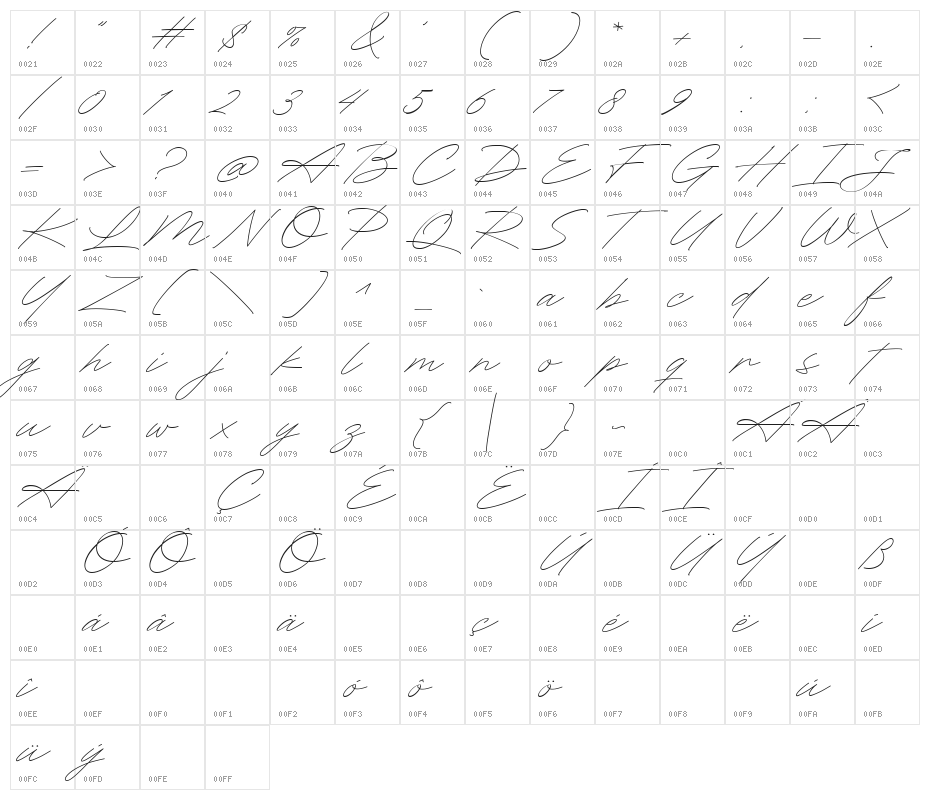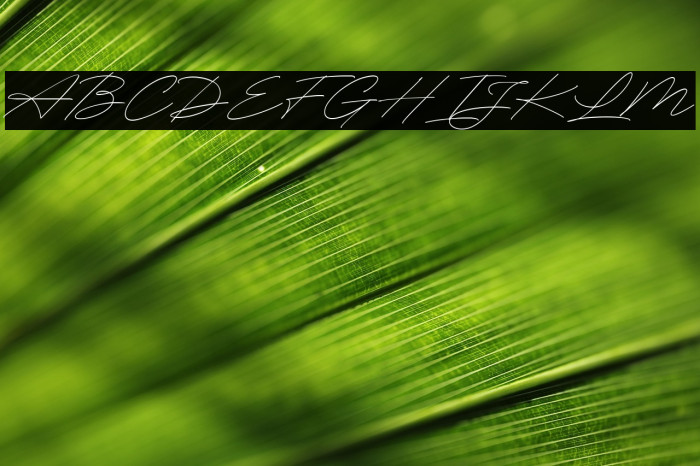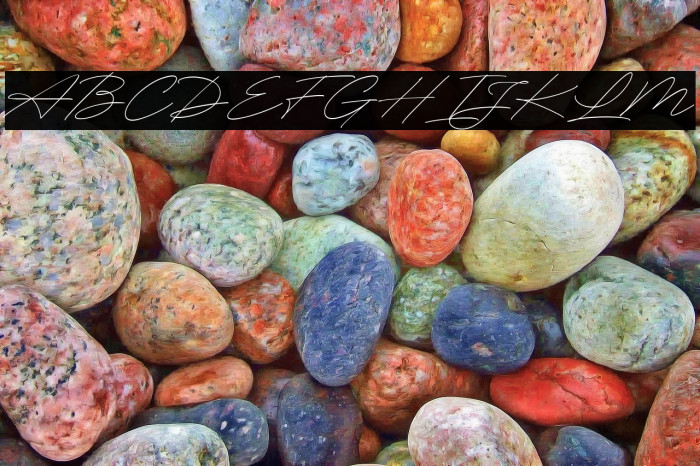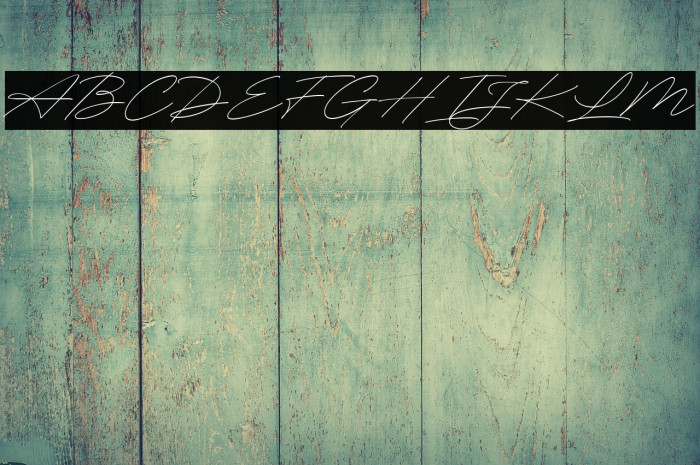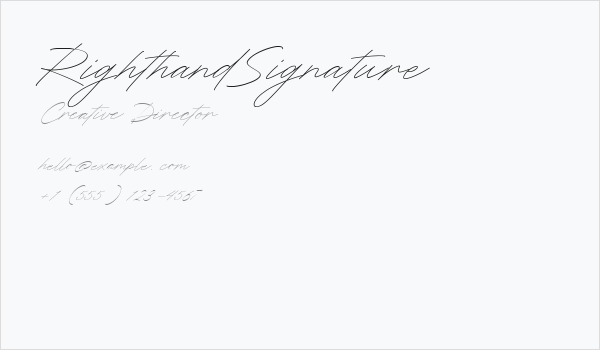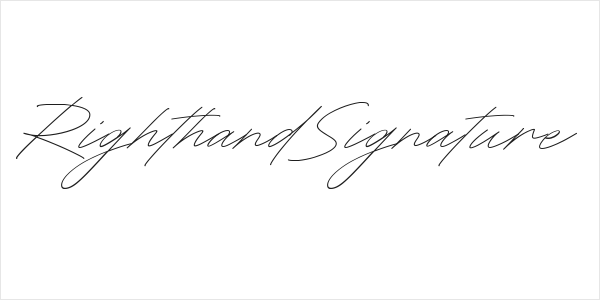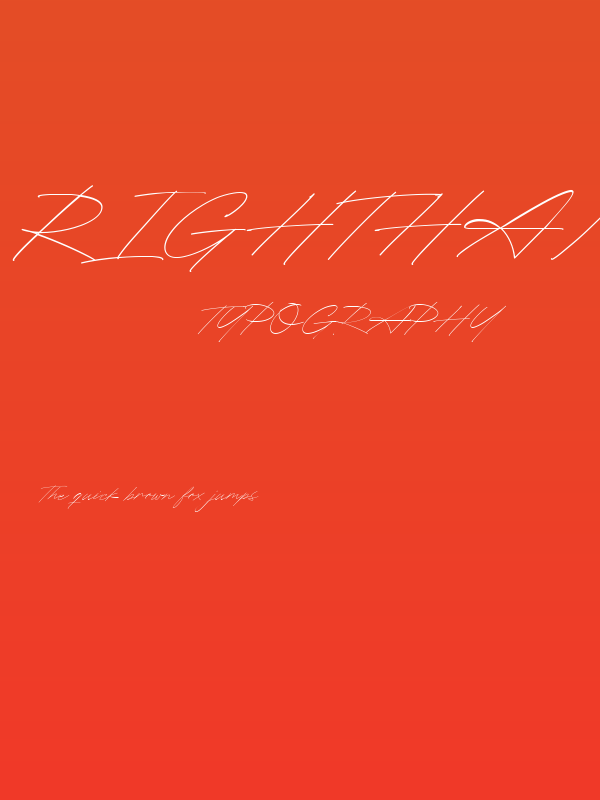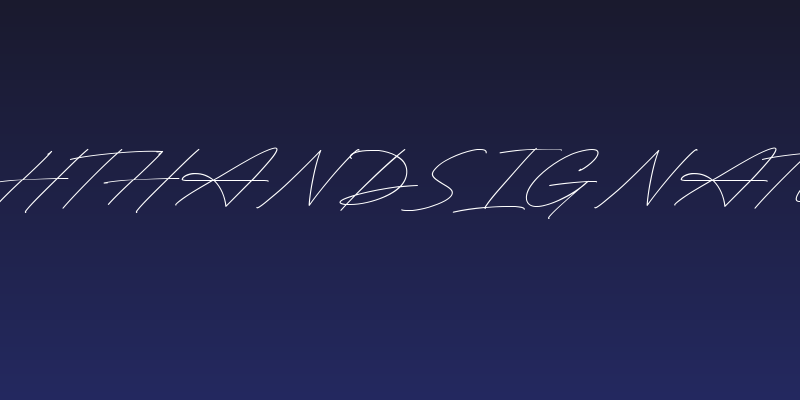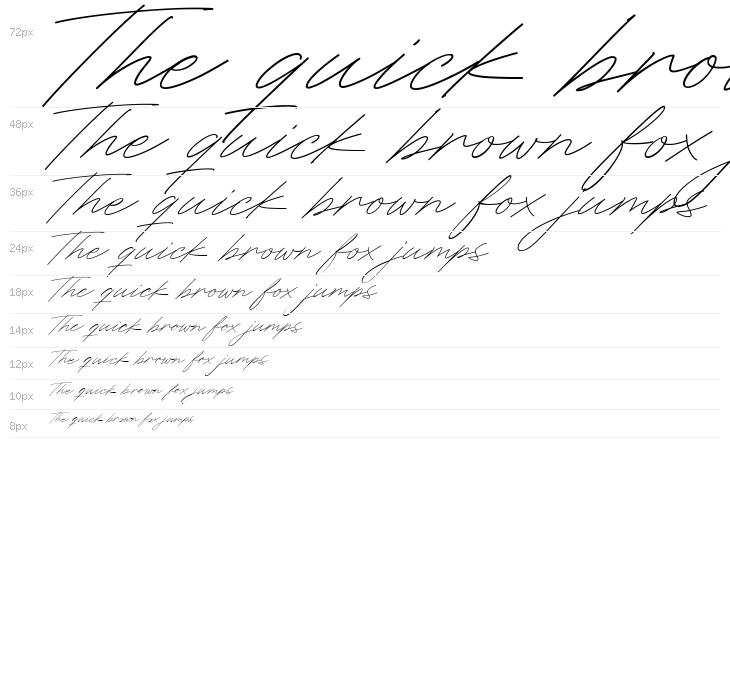
RighthandSignature Font
RighthandSignature Description
This elegant script font mimics the fluidity and grace of a handwritten signature. Its cursive style features smooth, flowing lines with a slight slant, giving it a sophisticated and personal touch. The uppercase letters are slightly larger and more ornate, while the lowercase letters maintain a consistent flow, enhancing readability. Numbers and special characters are designed to match the overall aesthetic, ensuring a cohesive look across all text elements. The font's delicate strokes and subtle variations in line thickness add to its charm, making it ideal for projects that require a touch of elegance and personalization.
| Overall Style | Elegant, Personal |
| Proposed Projects | Ideal for wedding invitations, personal branding, elegant stationery, and signature logos. |